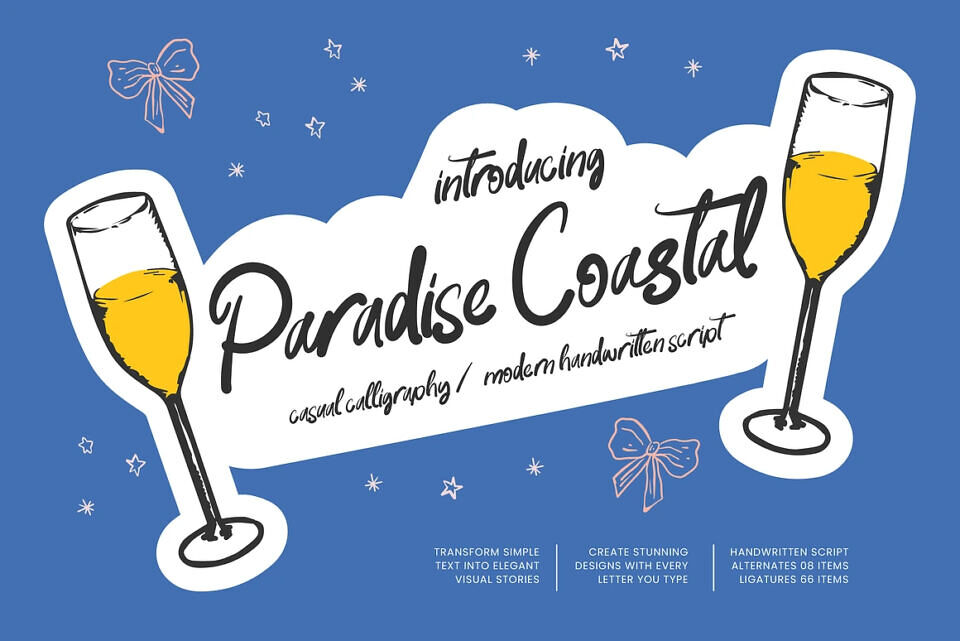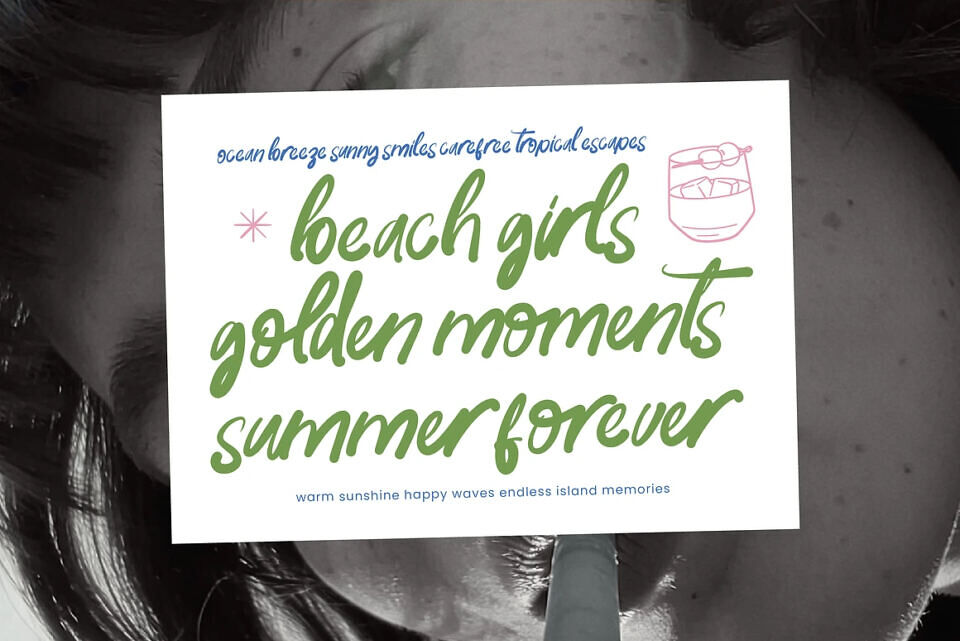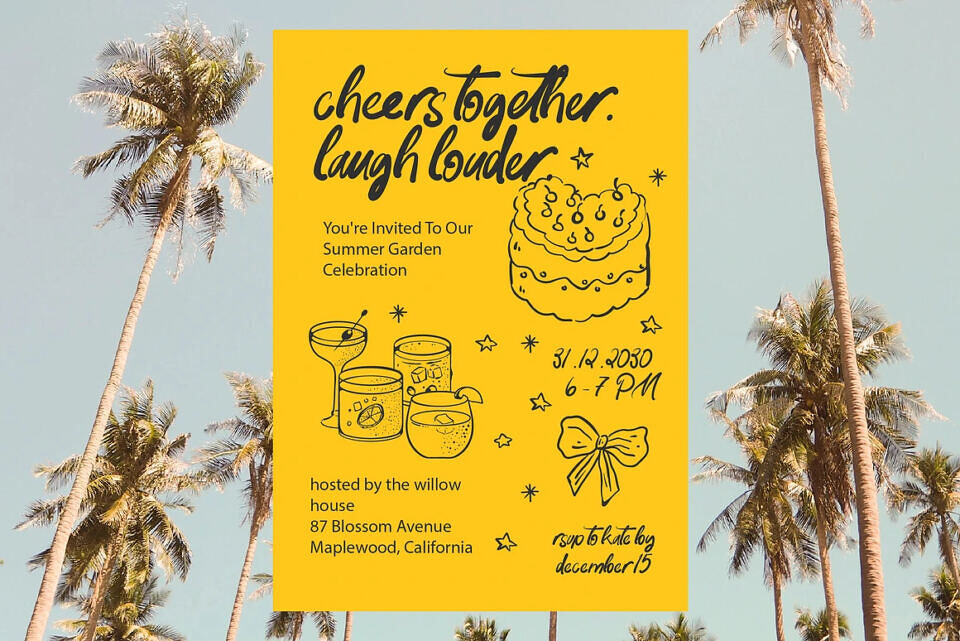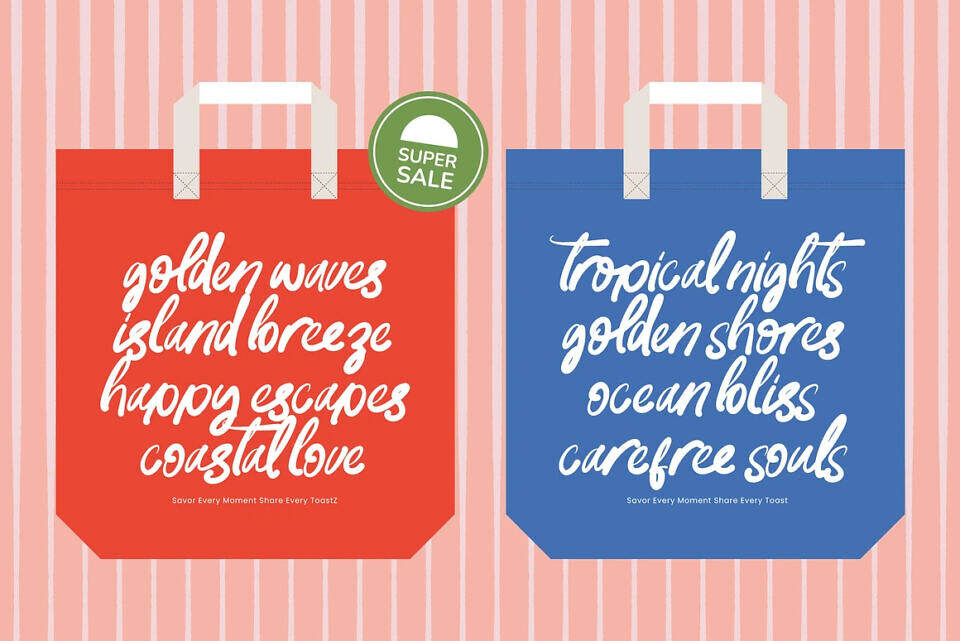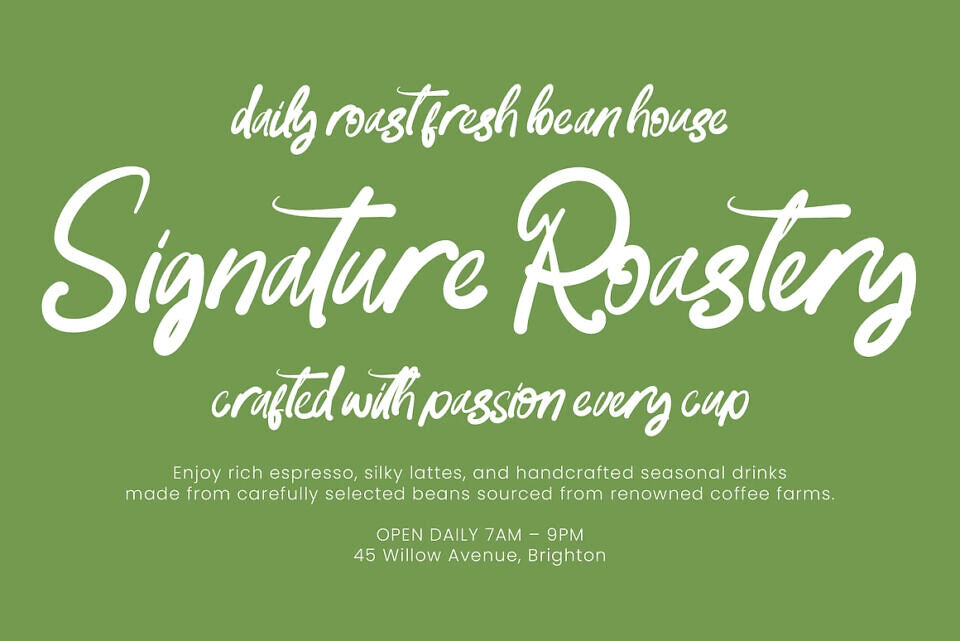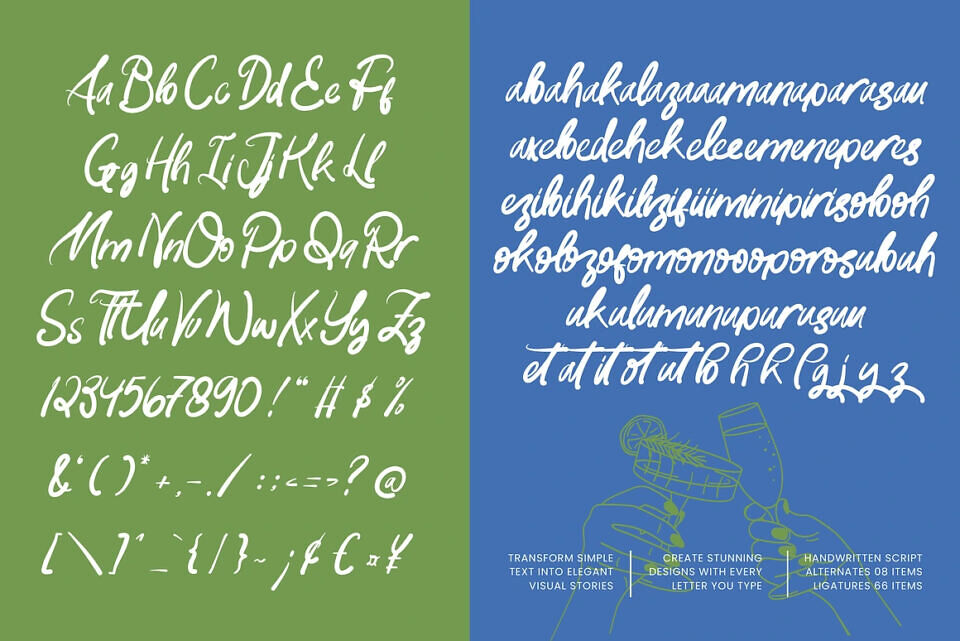
Paradise Coastal is a casual calligraphy and modern handwritten script font designed to capture the warmth, freedom, and effortless charm of coastal living. Combining natural handwriting flow with elegant calligraphic movement, this typeface delivers a relaxed yet refined personality perfect for creative branding and lifestyle-focused design projects.
Inspired by beachside escapes, summer memories, handwritten postcards, and carefree moments by the ocean, Paradise Coastal brings an authentic handwritten character that feels personal, inviting, and expressive.